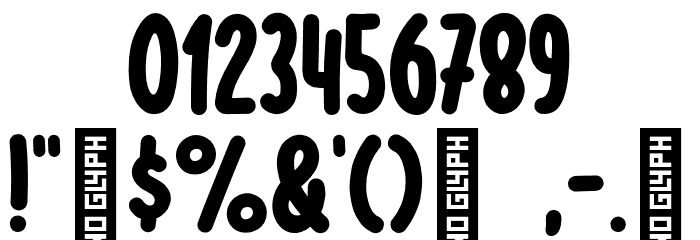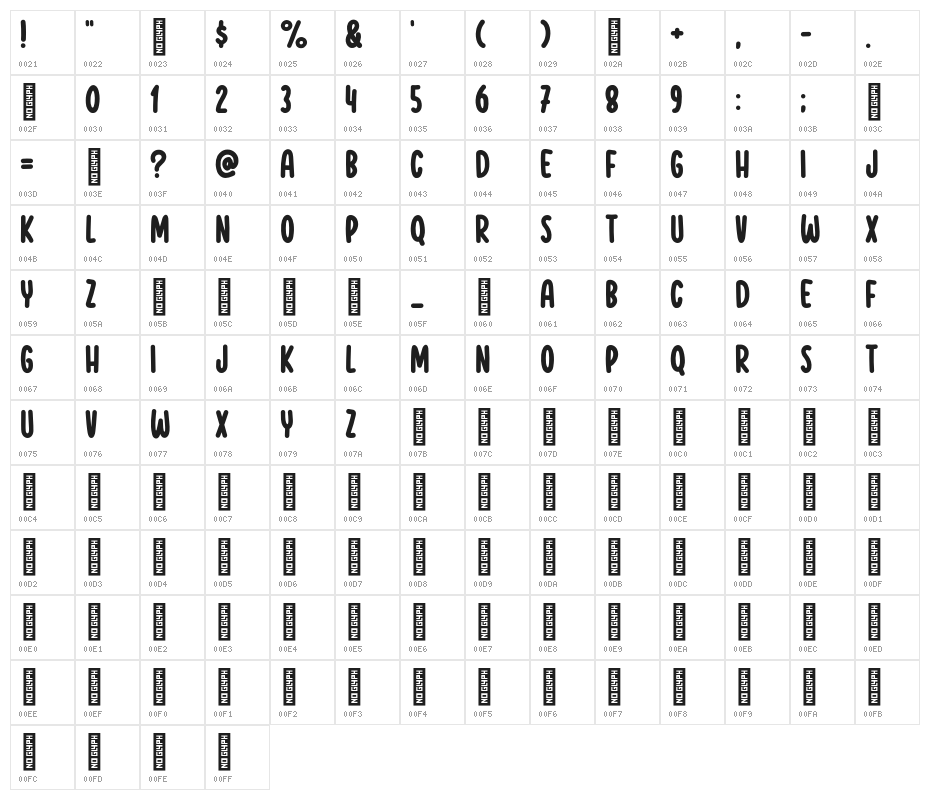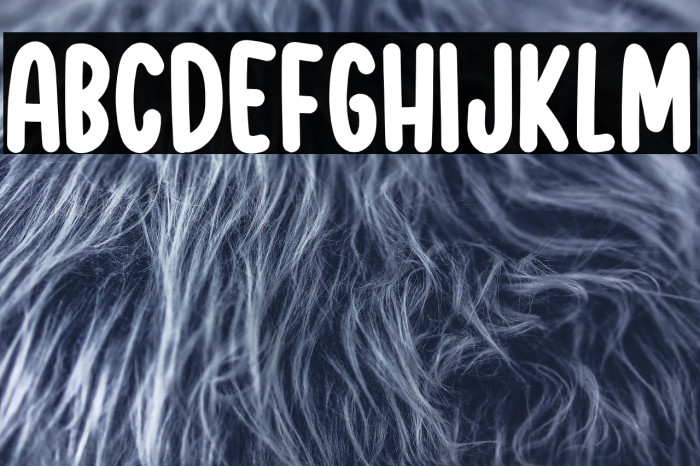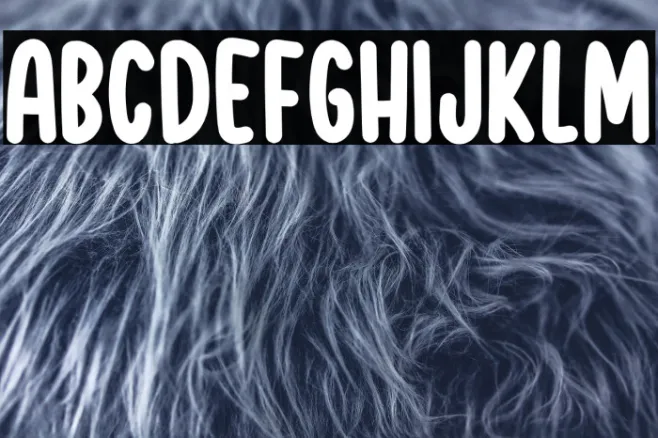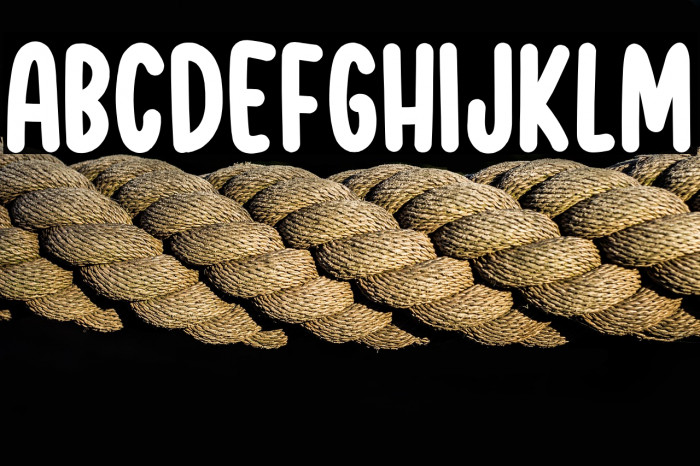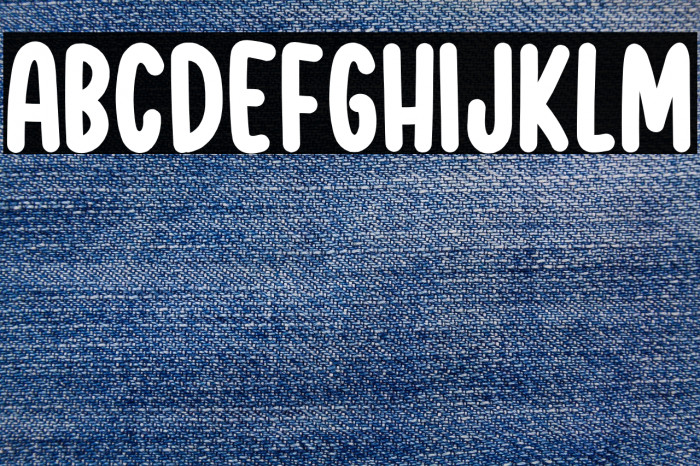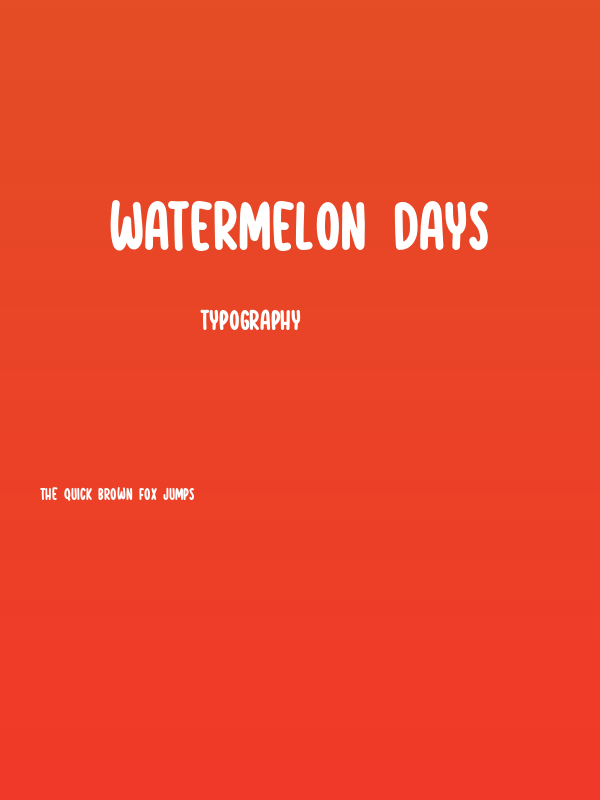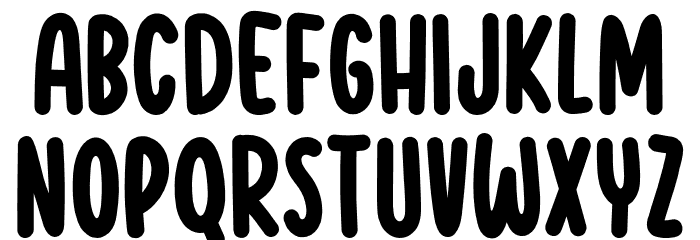
Watermelon Days Font
Watermelon Days Description
This font features a playful and bold design with rounded edges and a slightly irregular shape, giving it a hand-drawn appearance. The characters are thick and substantial, providing a strong visual impact. The uppercase and lowercase letters maintain a consistent style, with a friendly and approachable feel. The numbers and special characters are equally bold, ensuring readability and uniformity across all elements. This font is ideal for projects that require a fun and informal touch, such as children's books, posters, and playful branding.
| Proposed Projects | Ideal for children's books, playful branding, posters, and informal designs. |